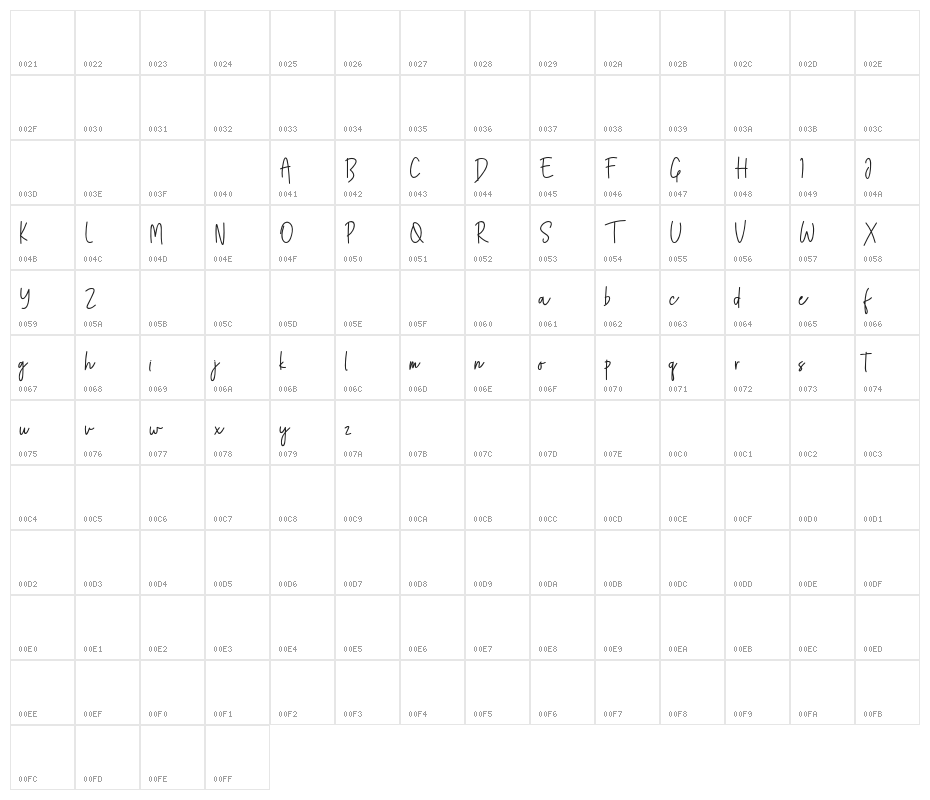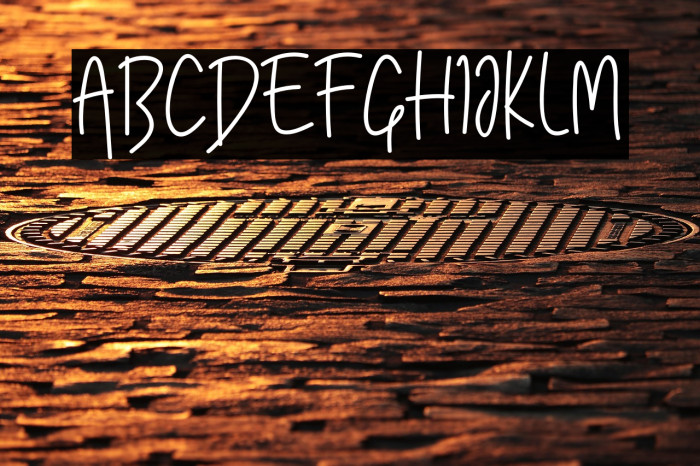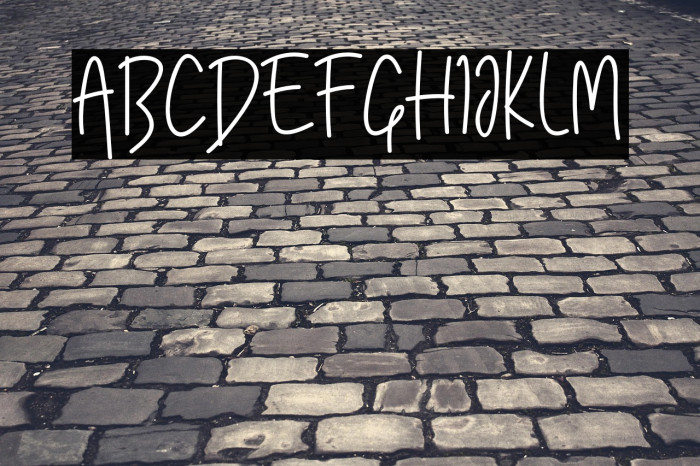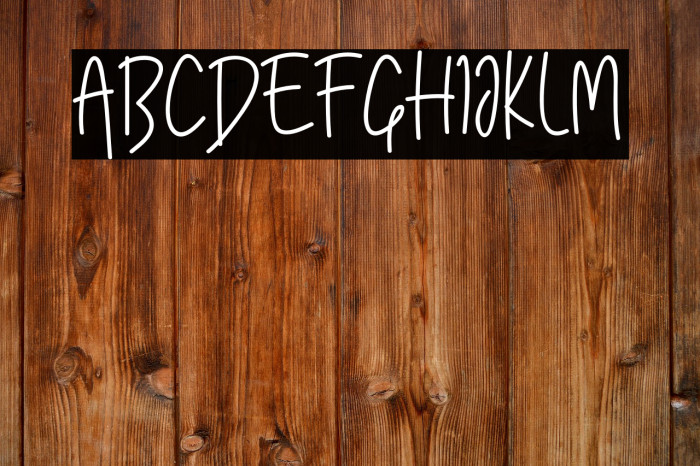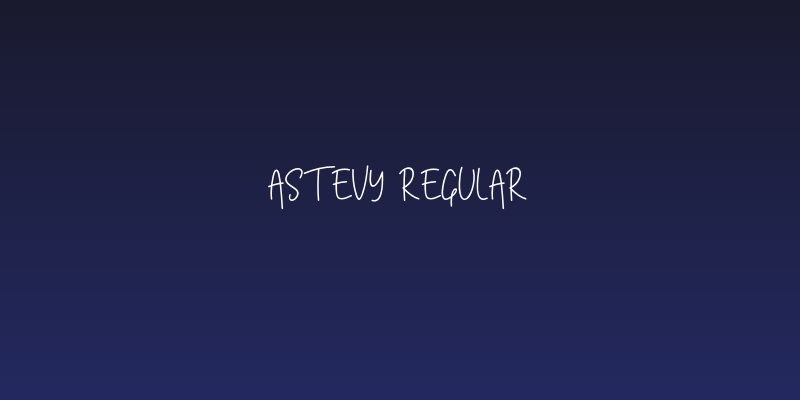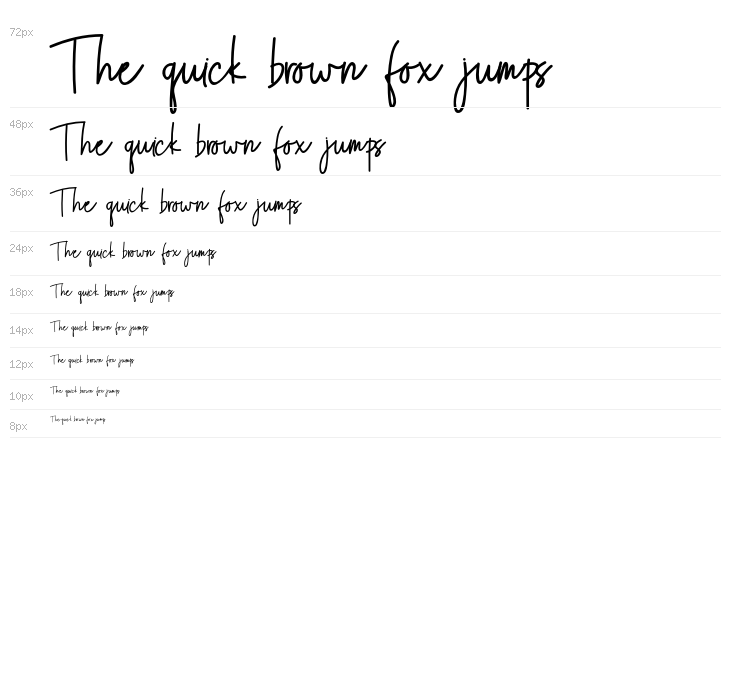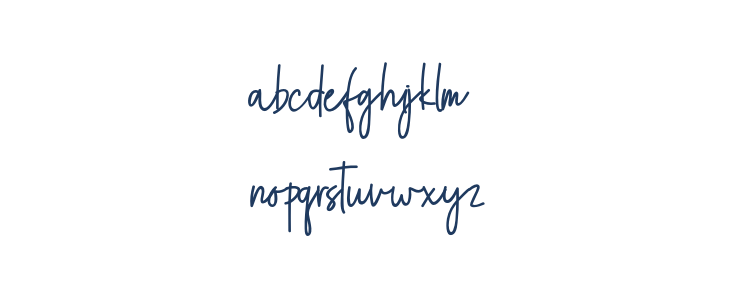
Astevy-Regular Font
Astevy-Regular Description
This font features a playful and casual handwritten style, characterized by its flowing and slightly irregular letterforms. The uppercase letters are tall and narrow, with a consistent stroke width that gives a uniform appearance. The lowercase letters maintain a similar style, with some letters having distinctive loops and curves that add to the font's charm. The overall look is informal yet legible, making it suitable for projects that require a personal touch. The font's design is clean and modern, with a touch of whimsy that makes it stand out.
| Overall Style | Casual, Playful |
| Use Case | Headlines, Logos, Informal Text |
| Proposed Projects | Ideal for greeting cards, invitations, personal branding, and social media graphics. |